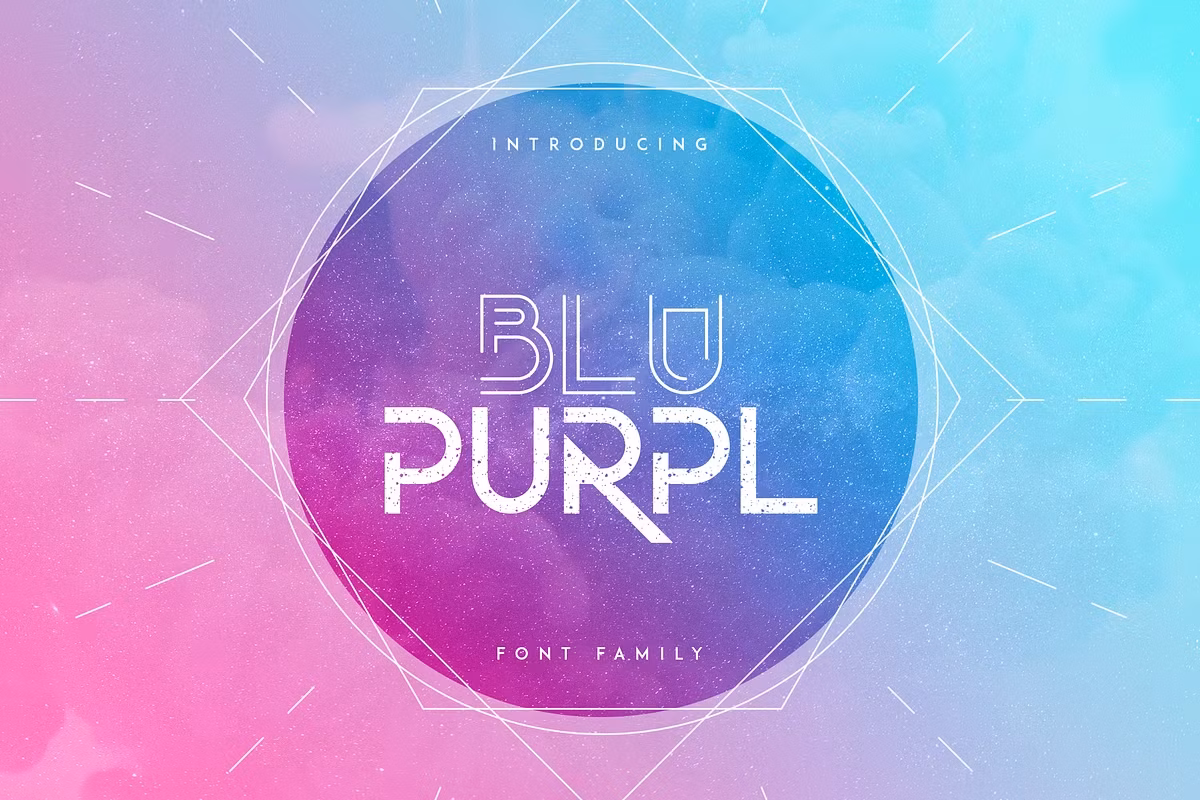
Modern, versatile, and full of personality, BluPurpl Font Family Free Download offers a range of beautifully crafted fonts designed to elevate your design projects. Perfect for branding, logos, editorial layouts, websites, packaging, and more, this font family gives you a variety of options to create bold and stylish typography.
With a mix of clean, geometric letterforms and expressive design, BluPurpl comes in multiple weights and styles, making it adaptable for both large headlines and small body text. Whether you’re working on a minimalist project or a vibrant, contemporary brand, BluPurpl provides the flexibility and elegance you need.